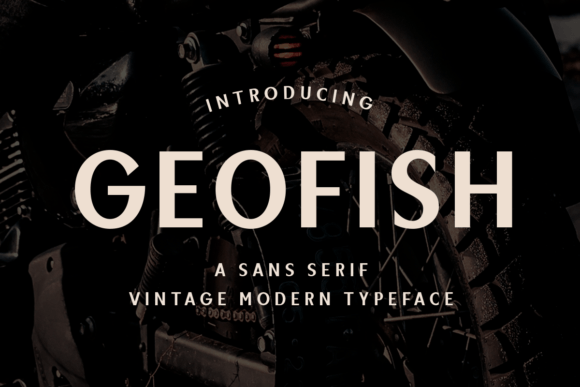
Unleash your creativity with Geofish, a breathtaking sans serif font family that embodies the essence of vintage charm with a modern twist. This font is a work of art, meticulously crafted by the talented yukitacreative, designed to transport you to an era of timeless elegance.
With its classic curves and clean lines, Geofish adds a touch of sophistication to any design project. Whether you're a seasoned graphic designer or just starting out, Geofish will elevate your designs to new heights. Create stunning logos, eye-catching posters, and captivating social media posts that leave a lasting impression on your audience.
With Geofish, you'll have access to a diverse range of weights and styles, allowing you to tailor your designs to perfection. From delicate hairlines to bold statement pieces, Geofish has something for every occasion. Experiment with different combinations to find the perfect match for your creative vision.
Geofish is more than just a font; it's an expression of your unique style and personality. It's the perfect choice for those who appreciate the finer things in life and want their designs to reflect their discerning taste. Stand out from the crowd and make a statement with Geofish, the font that exudes sophistication and timeless beauty.